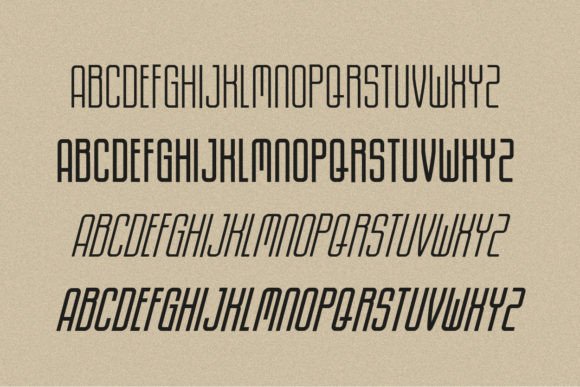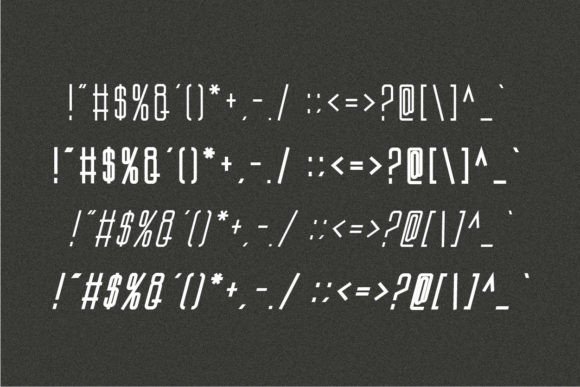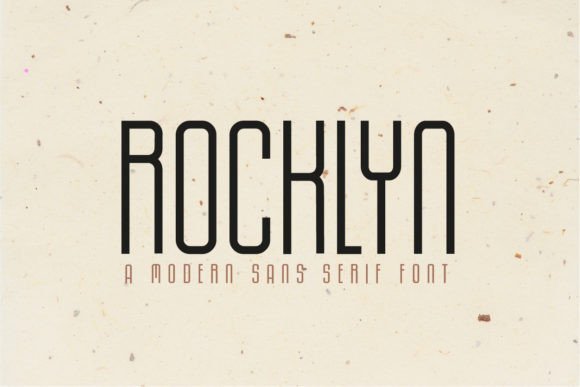
Introduction to Rocklyn Font
Rocklyn is a modern sans serif font designed to complement every project you’re working on.
Use it to create beautiful headings, gorgeous invitations, stunning logos, and so much more .
Key Features of Rocklyn Font
Why Choose Rocklyn Font?
Rocklyn Font offers exceptional quality and versatility, making it a valuable addition to your design toolkit. Whether you’re creating for personal projects or commercial use, Rocklyn Font delivers professional results.